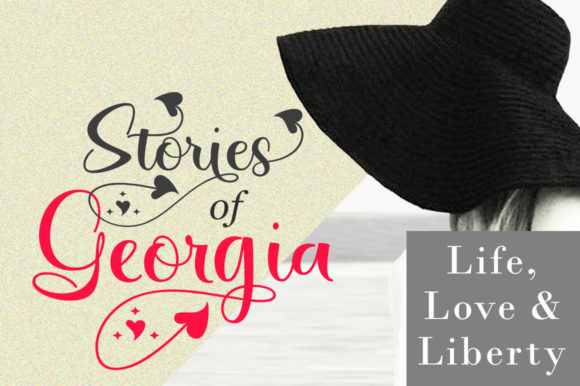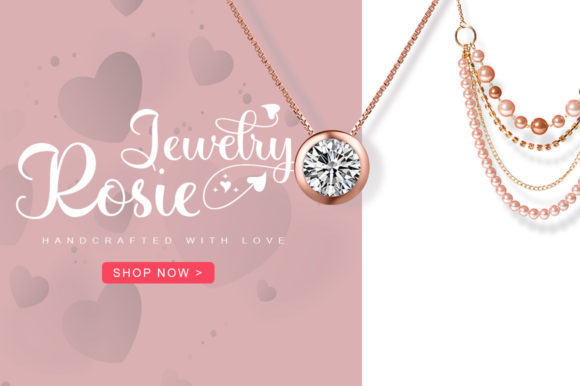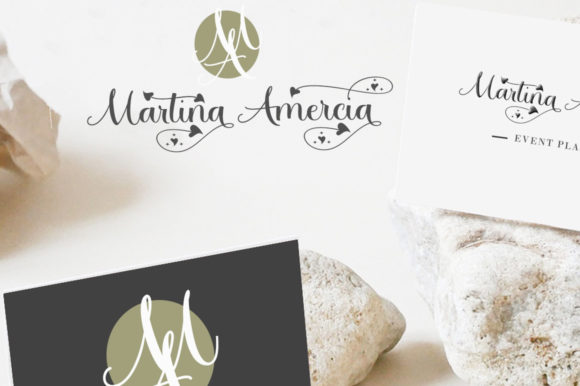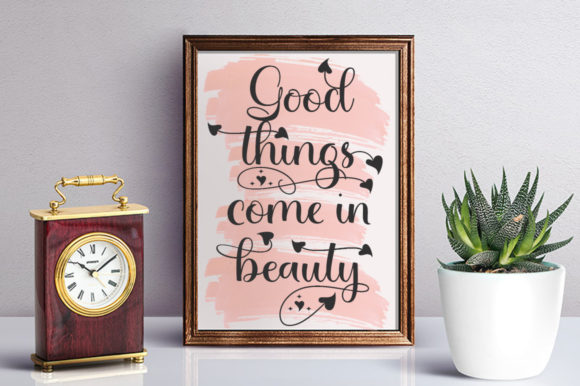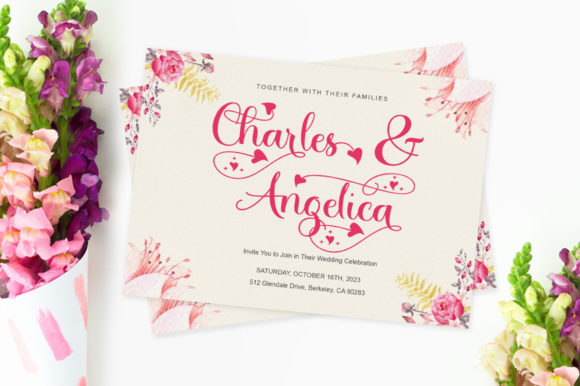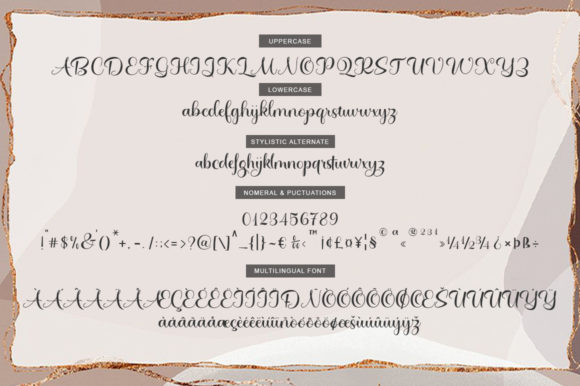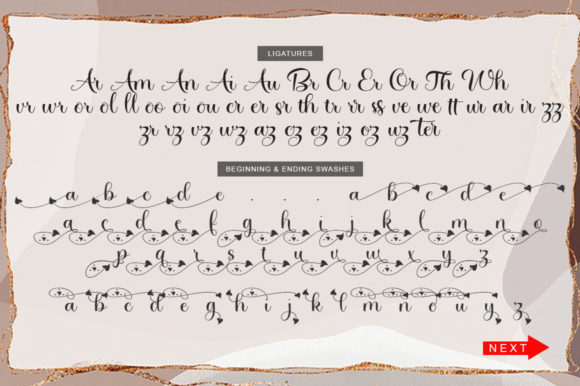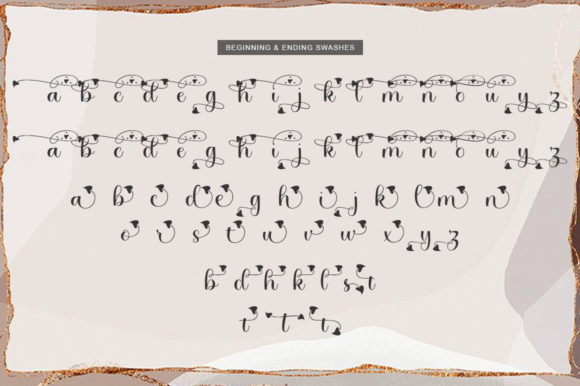
Cherrious Script Font
About Cherrious Script Font
Cherrious Script is a magical script font carefully created with a touch of elegance. This font is PUA encoded which means you can access all of the glyphs and swashes with ease!